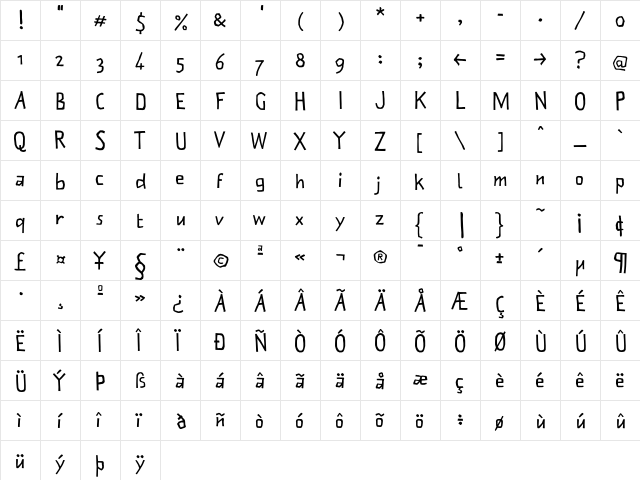
MattoSans Regular
Design Context for MattoSans Typeface
MattoSans is a composed and adaptable typeface that performs quietly and consistently across a wide range of design contexts.
Pro Tip: Use MattoSans in both headline and body roles to test its range before committing to a single application.